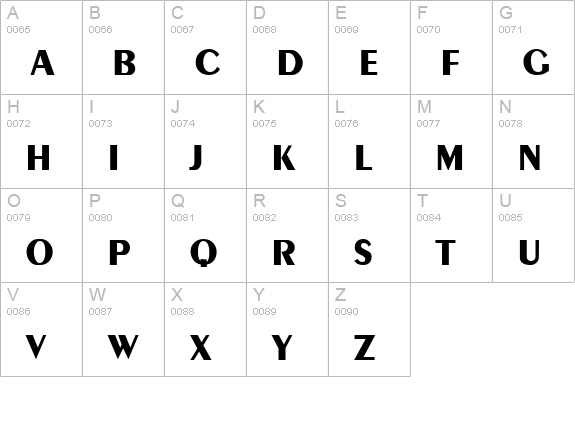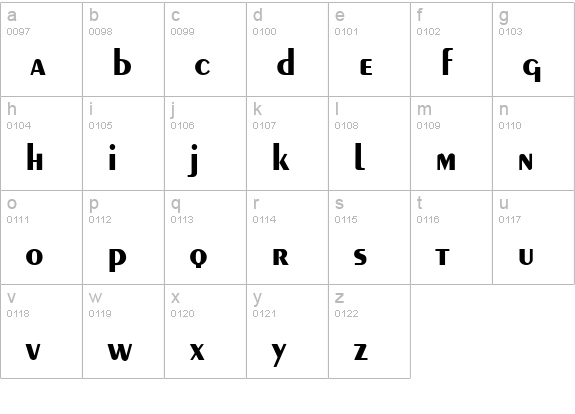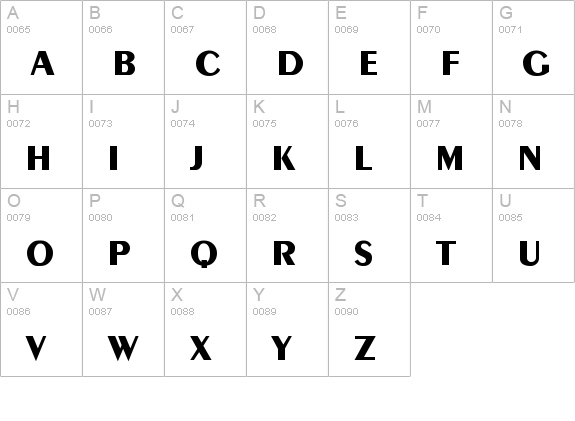
Penyae Fed Font is a mesmerizing typeface that effortlessly combines elegance and boldness. With its sleek and modern design, this font is perfect for a wide range of creative projects, from branding and advertising to editorial design and website typography. What sets Penyae Fed Font apart from other fonts is the fact that it is absolutely free. That's right, you can download this incredible font without spending a dime. It is freely available to download at FontsMarket.com, a trusted source for high-quality fonts. The versatility of Penyae Fed Font is truly remarkable. Its clean lines and balanced proportions make it incredibly legible in both small and large sizes. Whether you're designing a logo, creating a poster, or crafting a magazine layout, this font will make your text stand out and grab attention. The letterforms of Penyae Fed Font are meticulously crafted, with each character exuding a sense of confidence and sophistication. The bold curves and sharp angles give this font a unique personality that is both modern and timeless. Penyae Fed Font also offers a wide range of glyphs and ligatures, allowing you to create stunning typographic compositions with ease. Its extensive character set includes uppercase and lowercase letters, numbers, punctuation marks, and special symbols, ensuring that you have everything you need to bring your design visions to life. Whether you're a professional designer or a hobbyist, Penyae Fed Font is a must-have in your font collection. Its versatility, elegance, and the fact that it is freely available to download at FontsMarket.com make it an invaluable resource for any creative project. Don't miss out on the opportunity to add this stunning font to your toolkit and elevate your designs to new heights.